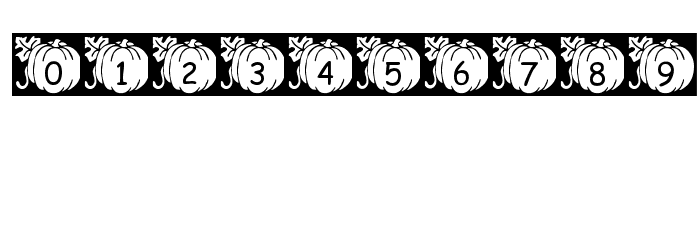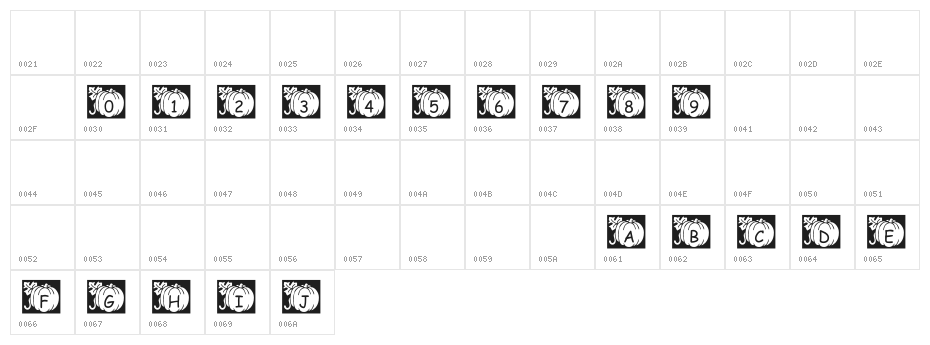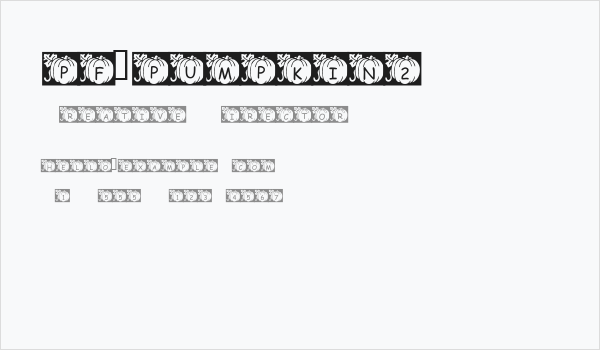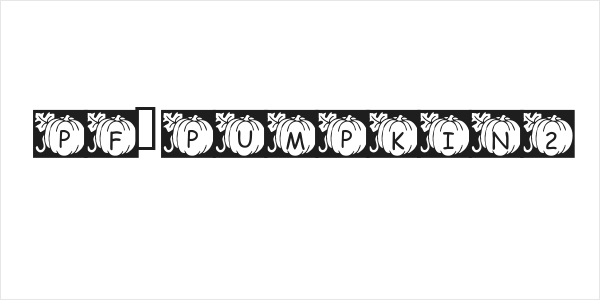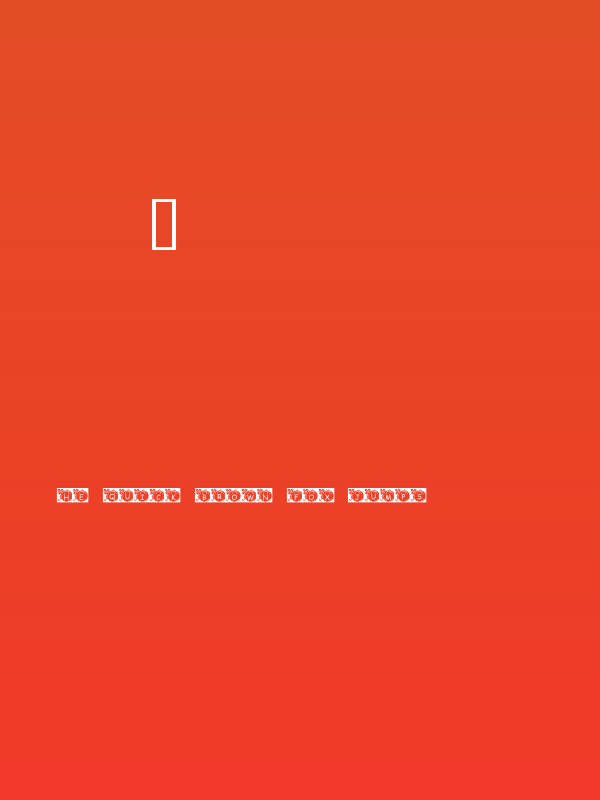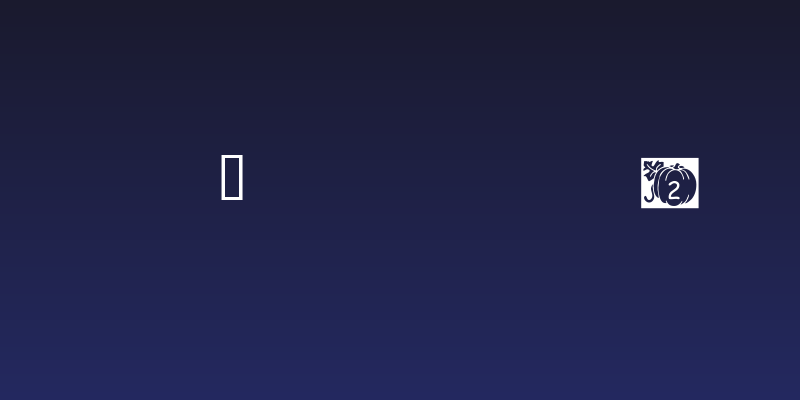
pf_pumpkin2 Font
pf_pumpkin2 Description
This decorative font features each character enclosed within a stylized pumpkin shape, creating a playful and festive appearance. The letters and numbers are centered inside the pumpkins, which are adorned with leaf and vine details, enhancing the Halloween or autumnal theme. The characters themselves are simple and sans-serif, ensuring readability while maintaining the whimsical design. This font is ideal for seasonal projects, adding a touch of fun and creativity to any design. The consistent use of pumpkin motifs provides a cohesive look, making it perfect for themed events or promotions.